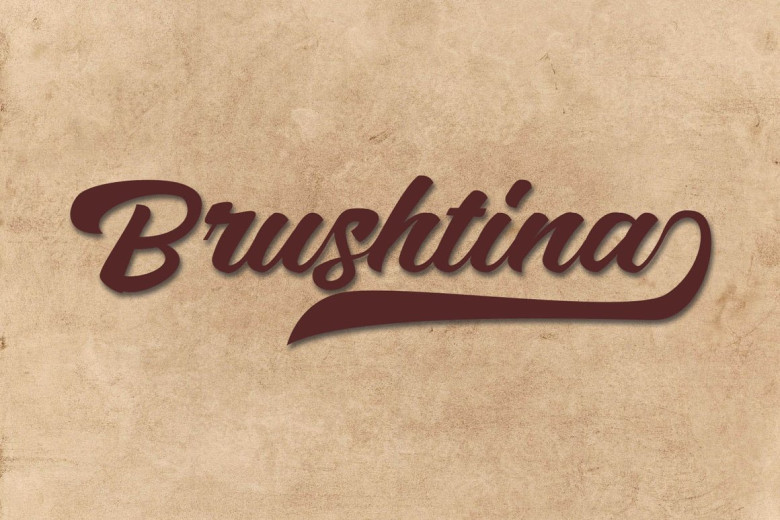
Brushtina Font
Brushtina Brush Font will bring any design project to a higher level. Featuring elegance and artistic flare, this font is an excellent addition for creative endeavors of all sorts.
Brushtina Brush Font has been meticulously designed with great attention to detail, adding sophistication and uniqueness to any design. Ideally suited for branding purposes, logo designs, invitations or social media graphics this font can also be used as a branding element.
Brushtina Brush Font’s flowing brushstrokes exude natural charm, while its flawless legibility ensures that it can be read at different sizes without difficulty. Furthermore, its versatility extends across print and digital media – making it a highly valuable asset for artists, designers and creative professionals.
Brushtina Brush Script Font